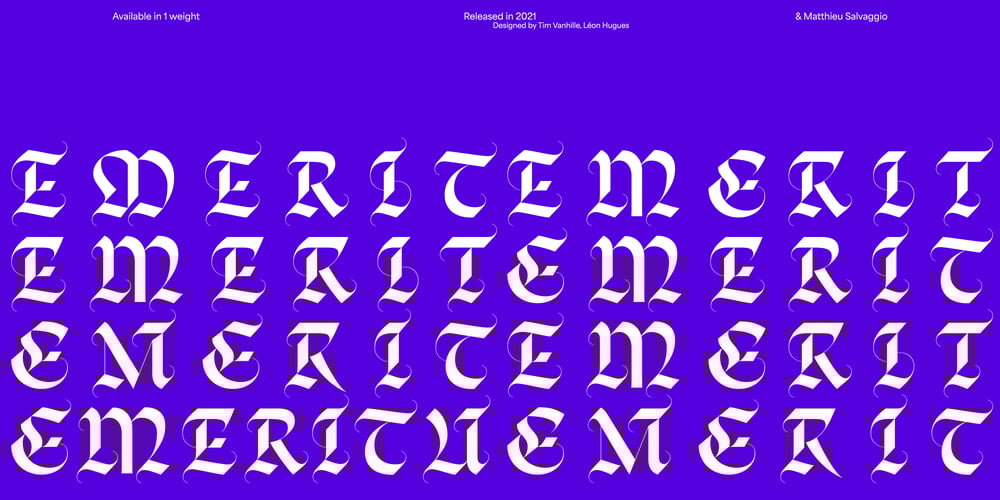
Emerit Blackletter Font Family was designed by Léon Hugues, Matthieu Salvaggio, Tim Vanhille and published by Blaze Type. Emerit Blackletter contains 1 styles and family package options. Emerit is a blackletter font drawing its inspiration in all possible eras of Blackletters & Fraktur designs. In the early stage of the design process, Emerit was thought like a modern reinterpretation of the rotunda style. We first started the design process by establishing the historical structure following the original ductus. We wanted to enrich this particular set of rotunda and blackletter font shape with some modern high contrast details in order to create a unique aesthetic.We came up with those thin organic terminals connecting somehow to calligraphic ornament style. Those details give some quite interesting dancing rhythm to the font which make the letters look alive. With a mix of rounded rotunda inspired shapes and the sharpness of the BLZT style, Emerit establishes itself as a classic for posters, movies or web design projects that need a strong gothic approach.